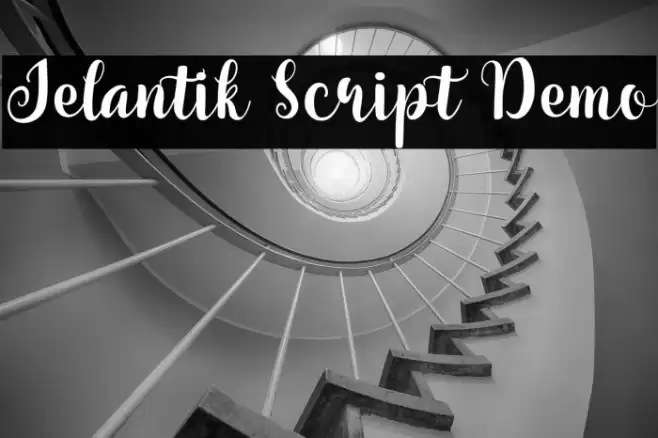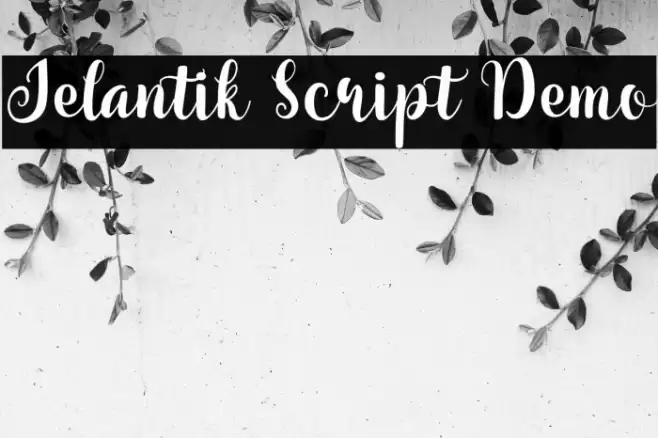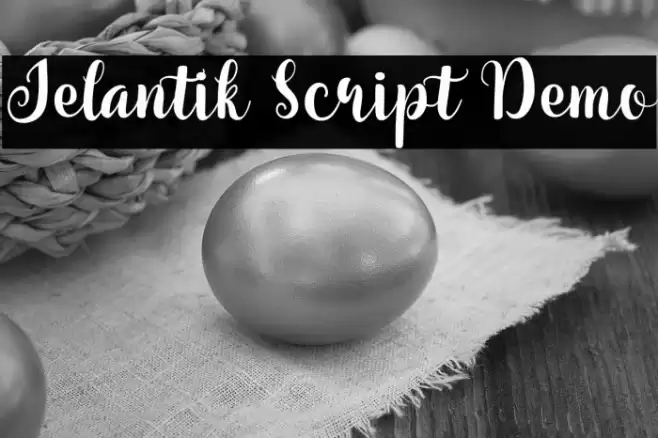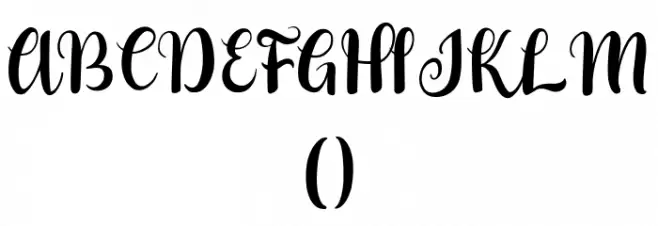
Jelantik Script Demo Font
Jelantik Script Demo Description
This script font exudes elegance and fluidity, characterized by its smooth, flowing lines and graceful curves. The uppercase letters are particularly ornate, with some featuring delicate swashes that add a touch of sophistication. The lowercase letters maintain a consistent style, offering a harmonious blend of readability and decorative flair. The font's overall appearance is both stylish and versatile, making it suitable for a variety of design applications. Its bold strokes and medium contrast ensure that it stands out, while the moderate character spacing allows for easy readability. This font is ideal for projects that require a personal, artistic touch.
An elegant script font with flowing lines and decorative swashes from Regular fonts.